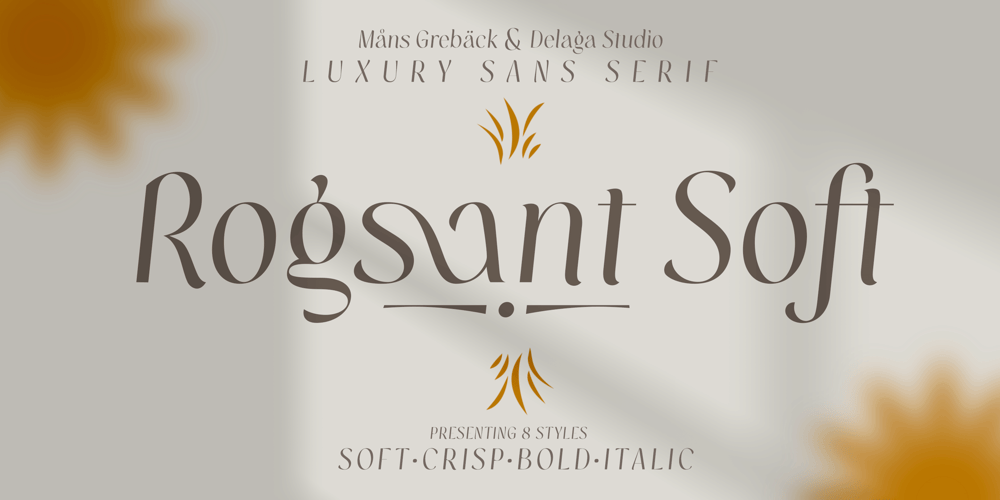
Rogsant Soft Font Family was designed by Måns Grebäck and published by Mans Greback. Rogsant Soft contains 4 styles and family package options. Rogsant Soft is a luxurious sans serif typeface that masterfully blends contrasting letterforms with a gentle flow and delicate rounded edges. Created by Mans Greback & Delaga, this fine and tasteful font emanates beauty and sophistication, making it a perfect choice for luxury branding, high-end fashion, and elegant design projects.The allure of Rogsant Soft lies in its attention to detail and meticulously crafted letterforms, which create a harmonious balance between refinement and legibility. With its clean and polished appearance, Rogsant Soft is an ideal choice for both print and digital designs that demand a touch of finesse and grace.The font is built with advanced OpenType functionality and has a guaranteed top-notch quality, containing stylistic and contextual alternates, ligatures, and more features; all to give you full control and customizability. It has extensive lingual support, covering all Latin-based languages, from Northern Europe to South Africa, from America to South-East Asia. It contains all characters and symbols you’ll ever need, including all punctuation and numbers.Mans Greback is a typeface designer from Sweden, whose love for design and typography drives him to create innovative and versatile fonts. His commitment to quality and originality has earned him respect and appreciation from designers worldwide.